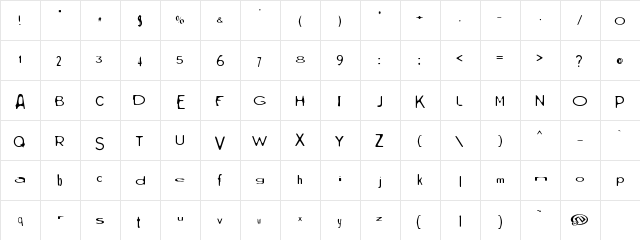
West point RegulW
| Foundry | Chris Brown (visual design) |
| Designer | Chris Brown |
Design Context for West point Typeface
West point is a composed and adaptable typeface that performs quietly and consistently across a wide range of design contexts.